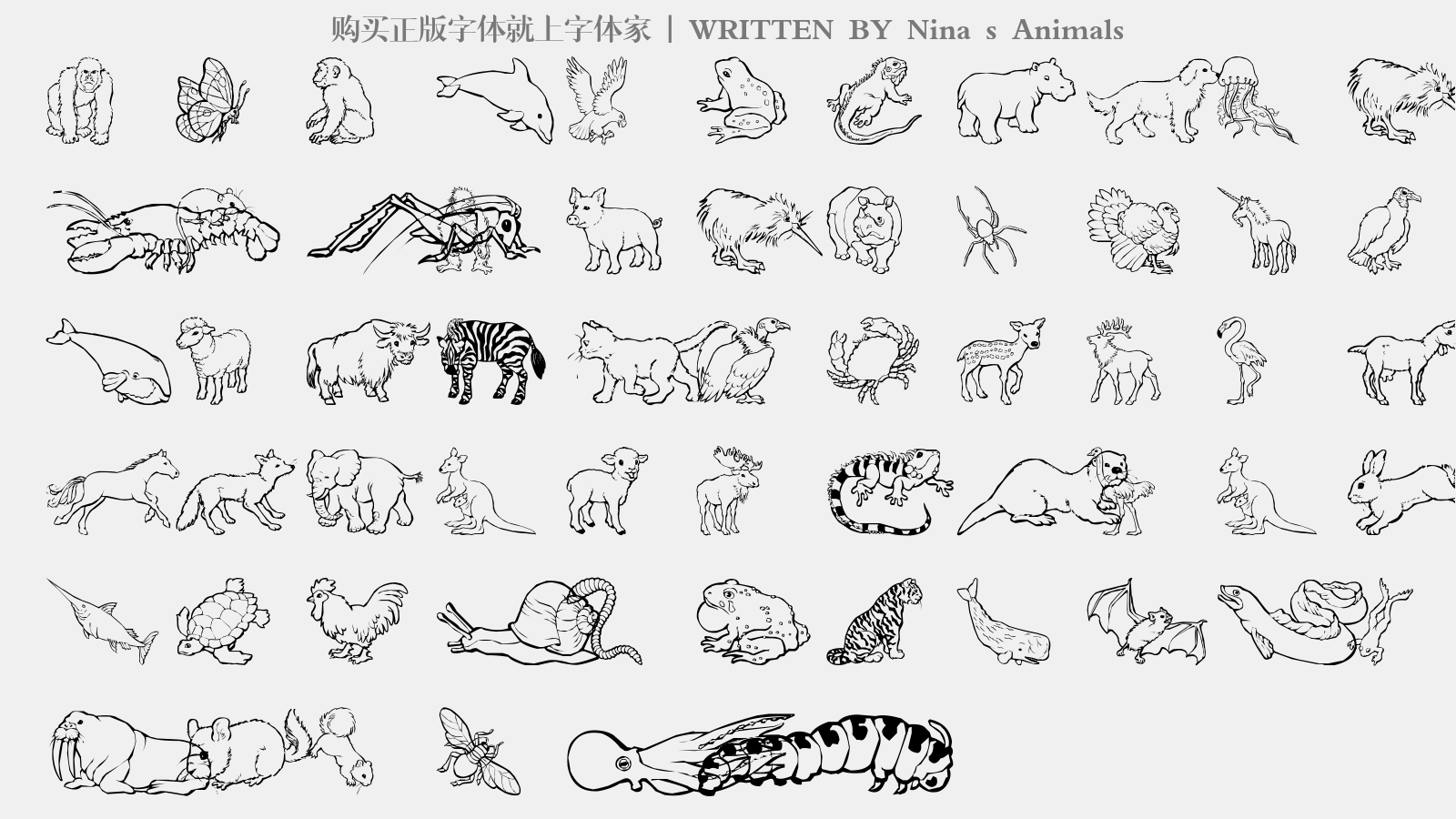
Nina's Animals Font . The nina's animals font contains 64 beautifully designed characters. Nina's animals nina's animals by gorillablu in dingbats > animals 104,986 downloads (2 yesterday) 1 comment download
Nina's animals nina's animals by gorillablu in dingbats > animals 104,986 downloads (2 yesterday) 1 comment download Nina's animals font is a whimsical and charming typeface that brings a touch of playfulness to any design project. Nina's animals font download is available free from fontget.
Nina's animals is a various type font that can be used on any device such as pc, mac,. Download nina's animals for free, view sample text, rating and more on fontsgeek.com Free download of nina's animals font. Nina's animals is a various type font that can be used on any device such as pc, mac,.
Nina's Animals Font - Download nina's animals for free, view sample text, rating and more on fontsgeek.com Nina's animals nina's animals by gorillablu in dingbats > animals 104,986 downloads (2 yesterday) 1 comment download This unique font features adorable. ️ customize your own preview on ffonts.net to make sure it`s the right one for your designs. The nina's animals font contains 64 beautifully designed.
Nina's Animals Font - ️ customize your own preview on ffonts.net to make sure it`s the right one for your designs. Nina's animals nina's animals by gorillablu in dingbats > animals 104,986 downloads (2 yesterday) 1 comment download Nina's animals is a various type font that can be used on any device such as pc, mac,. This unique font features adorable. Download nina's animals.
Nina's Animals Font - Nina's animals font is a whimsical and charming typeface that brings a touch of playfulness to any design project. Nina's animals nina's animals by gorillablu in dingbats > animals 104,986 downloads (2 yesterday) 1 comment download Nina's animals font download is available free from fontget. This unique font features adorable. Nina's animals is a various type font that can be.
Nina's Animals Font - This unique font features adorable. ️ customize your own preview on ffonts.net to make sure it`s the right one for your designs. Nina's animals font download is available free from fontget. Nina's animals nina's animals by gorillablu in dingbats > animals 104,986 downloads (2 yesterday) 1 comment download Download nina's animals for free, view sample text, rating and more on.
Nina's Animals Font - Download nina's animals for free, view sample text, rating and more on fontsgeek.com This unique font features adorable. ️ customize your own preview on ffonts.net to make sure it`s the right one for your designs. The nina's animals font contains 64 beautifully designed characters. Nina's animals nina's animals by gorillablu in dingbats > animals 104,986 downloads (2 yesterday) 1 comment.
Nina's Animals Font - Nina's animals nina's animals by gorillablu in dingbats > animals 104,986 downloads (2 yesterday) 1 comment download Nina's animals font is a whimsical and charming typeface that brings a touch of playfulness to any design project. ️ customize your own preview on ffonts.net to make sure it`s the right one for your designs. The nina's animals font contains 64 beautifully.
Nina's Animals Font - This unique font features adorable. Nina's animals nina's animals by gorillablu in dingbats > animals 104,986 downloads (2 yesterday) 1 comment download Download nina's animals for free, view sample text, rating and more on fontsgeek.com Nina's animals is a various type font that can be used on any device such as pc, mac,. ️ customize your own preview on ffonts.net.
Nina's Animals Font - Nina's animals font is a whimsical and charming typeface that brings a touch of playfulness to any design project. The nina's animals font contains 64 beautifully designed characters. Nina's animals font download is available free from fontget. Free download of nina's animals font. Download nina's animals for free, view sample text, rating and more on fontsgeek.com
Nina's Animals Font - Nina's animals is a various type font that can be used on any device such as pc, mac,. This unique font features adorable. Free download of nina's animals font. ️ customize your own preview on ffonts.net to make sure it`s the right one for your designs. Nina's animals nina's animals by gorillablu in dingbats > animals 104,986 downloads (2 yesterday).
Nina's Animals Font - This unique font features adorable. Download nina's animals for free, view sample text, rating and more on fontsgeek.com Nina's animals is a various type font that can be used on any device such as pc, mac,. Nina's animals font is a whimsical and charming typeface that brings a touch of playfulness to any design project. Nina's animals font download is.
Nina's Animals Font - The nina's animals font contains 64 beautifully designed characters. Nina's animals nina's animals by gorillablu in dingbats > animals 104,986 downloads (2 yesterday) 1 comment download Free download of nina's animals font. ️ customize your own preview on ffonts.net to make sure it`s the right one for your designs. Nina's animals font is a whimsical and charming typeface that brings.